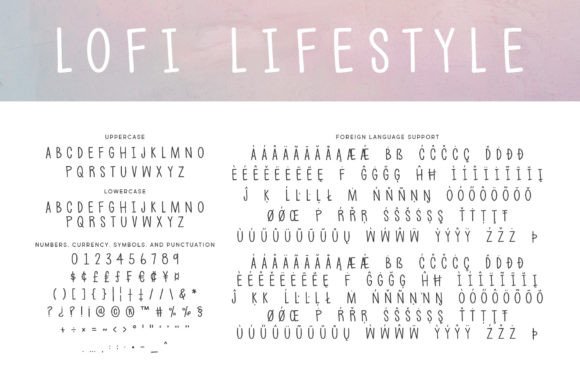
Introduction to Lofi Lifestyle Font
The Lofi Lifestyle Font is a chill, handwritten, all-caps typeface created in 2022 by Brittney Murphy Design.
With over 330 glyphs, the LoFi Lifestyle Font supports most Latin-based languages and the full version includes numbers and punctuation that you will need Using the asterisk (*) will give you a fun headphone icon you can use in your projects.
Key Features of Lofi Lifestyle Font